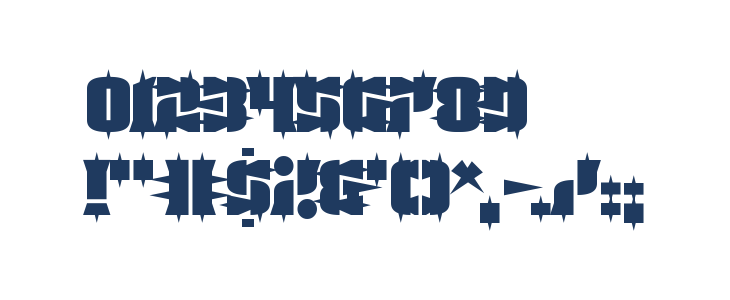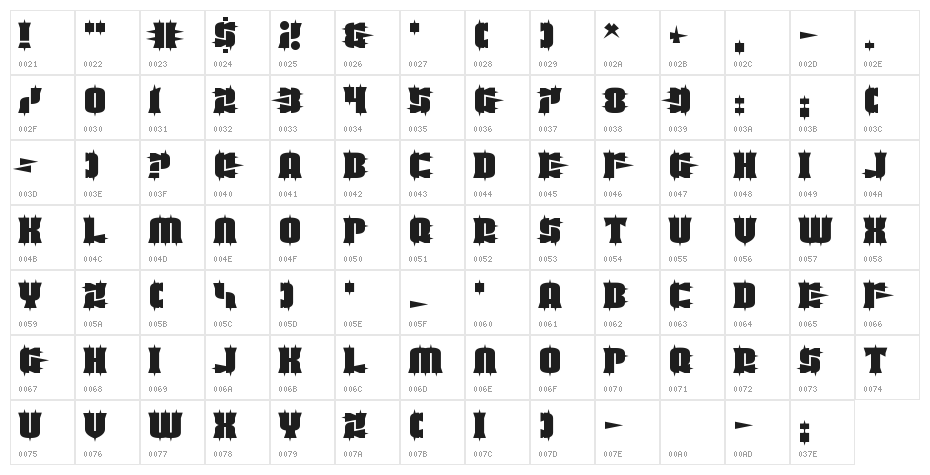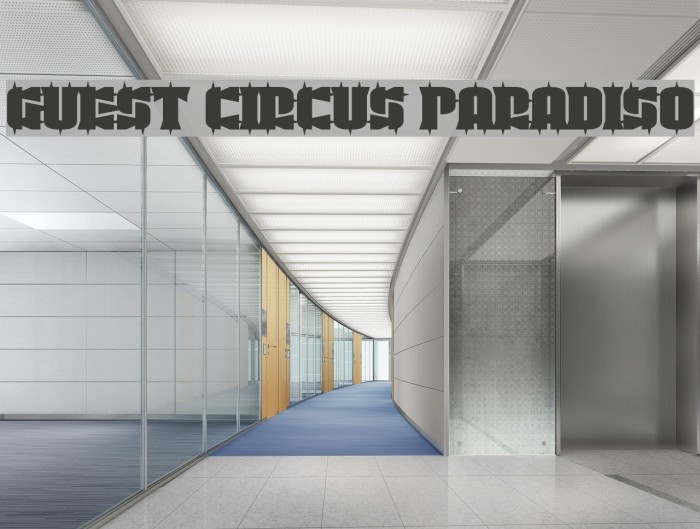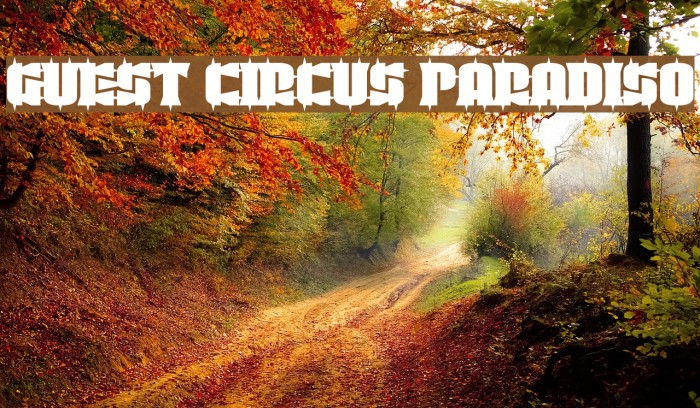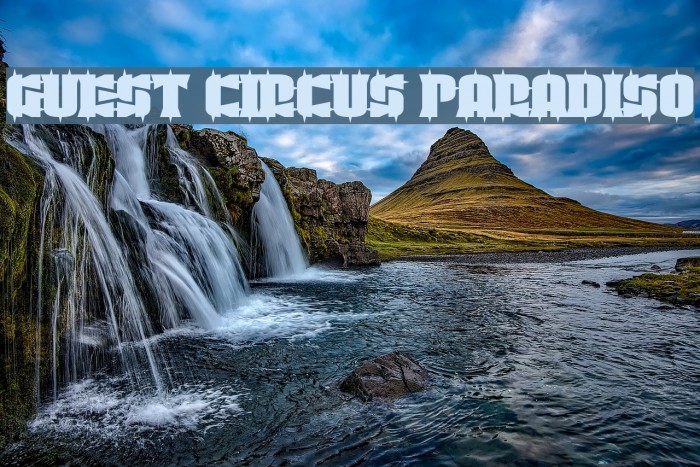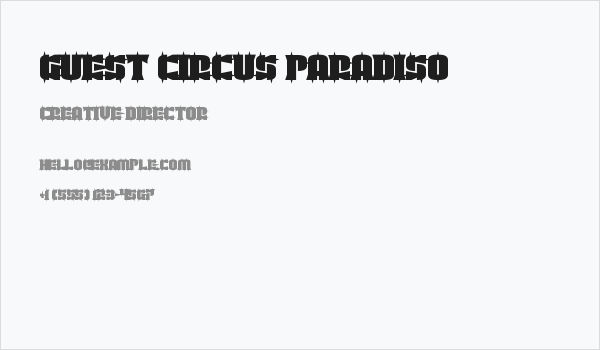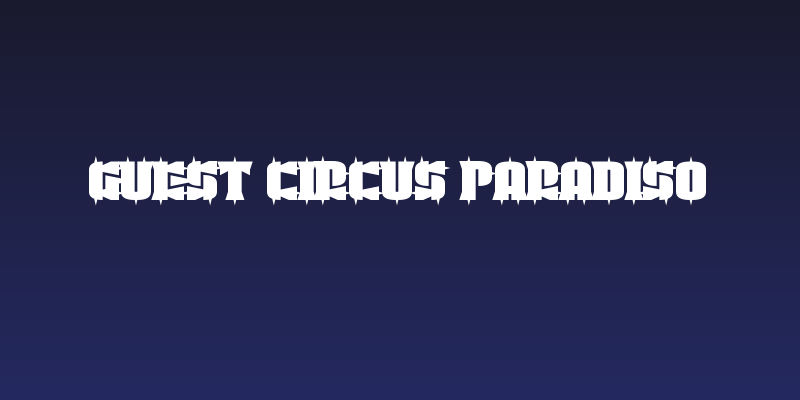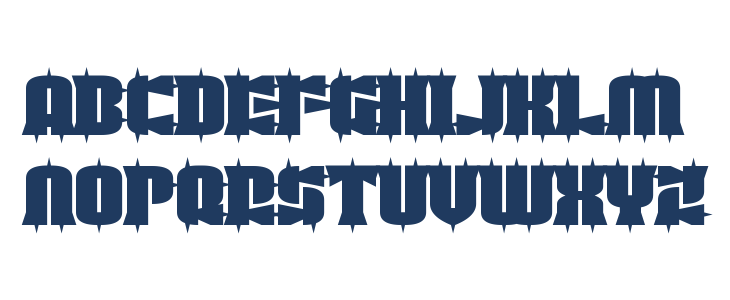
Guest Circus Paradiso Font
Guest Circus Paradiso Description
This font features a bold and dramatic style with sharp, angular edges and a distinct, spiky appearance. The characters are heavily stylized, creating a sense of movement and energy. The uppercase and lowercase letters maintain a consistent design, with exaggerated serifs and pointed terminals that give the font a unique, edgy look. The numbers and special characters follow the same design principles, ensuring uniformity across all glyphs. This font is highly decorative, making it suitable for eye-catching designs that require a strong visual impact.
| Use Case | Headlines, Posters, Logos |
| Proposed Projects | Ideal for circus-themed posters, event flyers, or any design requiring a bold, attention-grabbing typeface. |